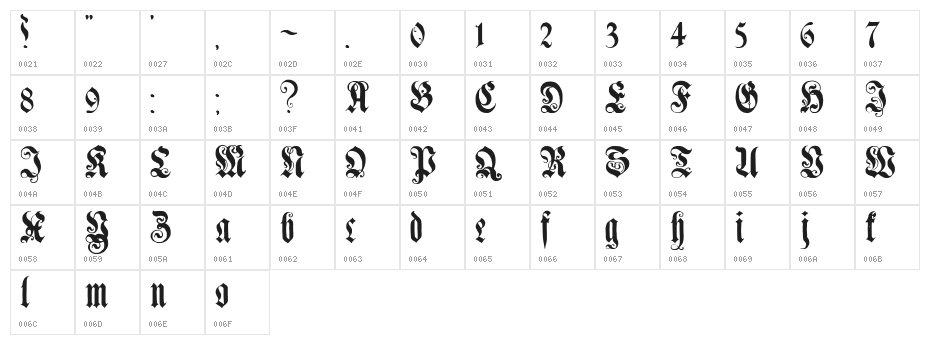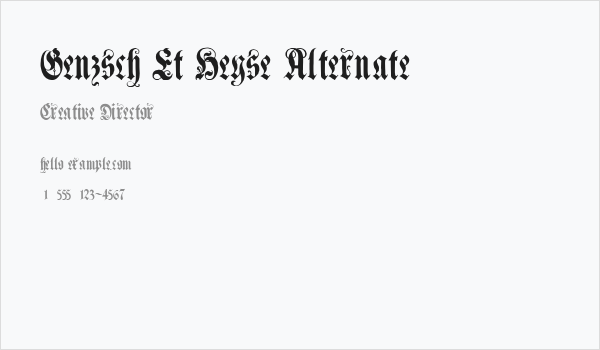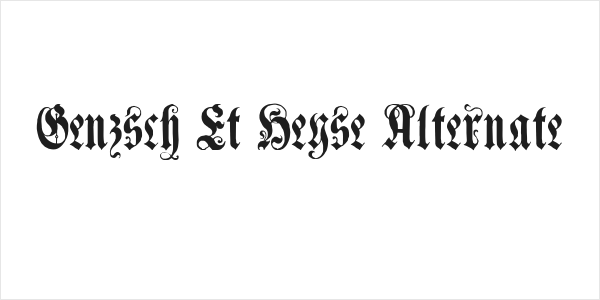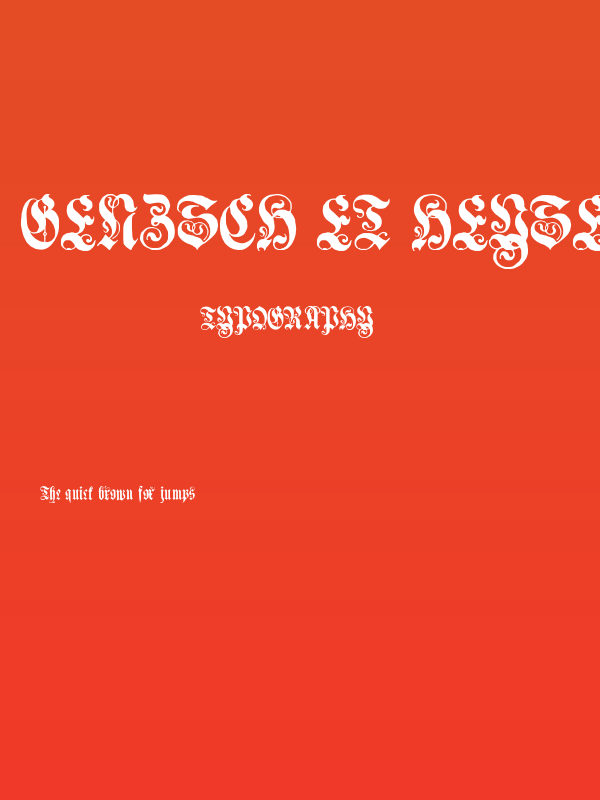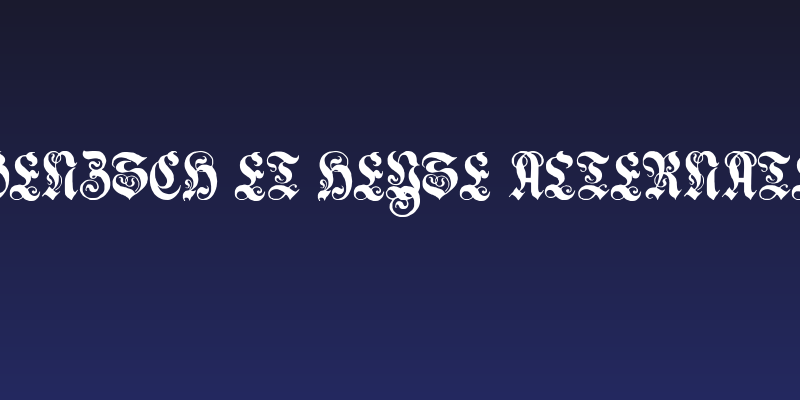
Genzsch Et Heyse Alternate Font
Genzsch Et Heyse Alternate Description
This font exhibits a classic blackletter style with intricate and ornate detailing. The characters are bold and heavily stylized, featuring sharp angles and elaborate flourishes that give it a distinct medieval appearance. The uppercase letters are particularly decorative, with additional embellishments that enhance their gothic aesthetic. The lowercase letters maintain the same level of detail, ensuring consistency throughout the typeface. Numbers and special characters are designed to match the overall theme, making this font ideal for projects that require a historical or traditional touch.
| Proposed Projects | Ideal for historical documents, event invitations, book covers, or any project requiring a traditional or gothic theme. |